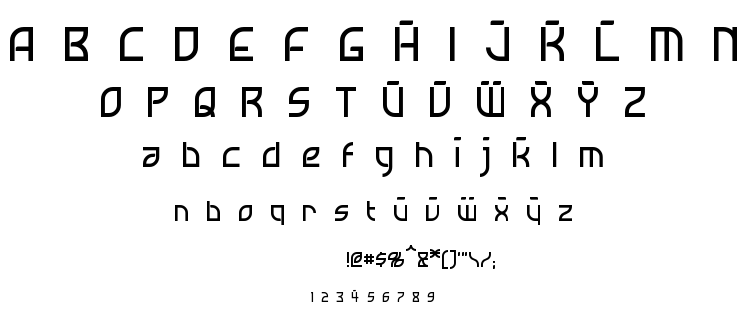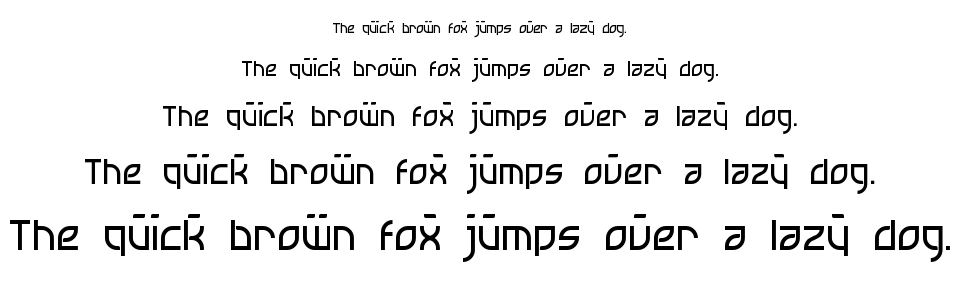
Envisioned as a ‘thinner’ version of Optic, Neostar is a refined, tall, science-fiction-themed typeface. Includes full alphabet, punctuation, accent glyphs, and Euro symbol.